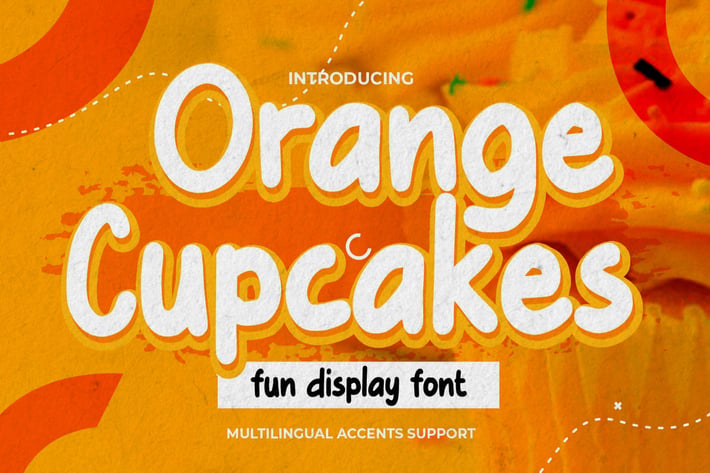
Orange Cupcakes - Fun Display Font
Orange Cupcakes is a - Cute Playful Font that will make your designs look modern, unique and fun.
Fonts include multilingual support